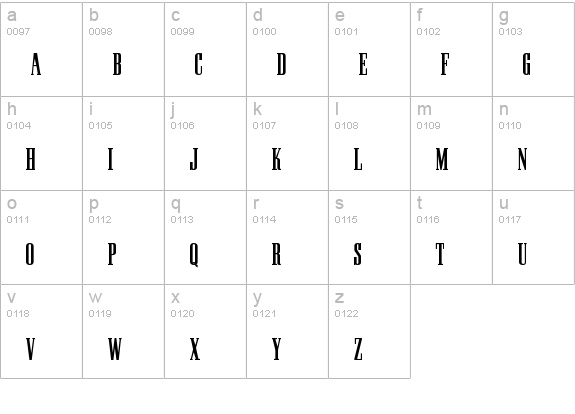
PallMallBoldTitling Font Details
PallMallBoldTitling is a stunning and versatile font that exudes confidence and boldness. With its strong and commanding presence, this typeface captivates the attention of viewers and leaves a lasting impression. Its bold and pronounced letterforms are perfect for headlines, titles, and branding materials. What sets PallMallBoldTitling apart is not only its striking aesthetics but also its accessibility. This font is available for free, making it an excellent choice for designers, creatives, and anyone in need of a powerful and impactful typeface. You can easily download PallMallBoldTitling at FontsMarket.com, a trusted source for high-quality and freely available fonts. Designed with meticulous attention to detail, PallMallBoldTitling ensures legibility and readability even at smaller sizes. Its well-defined curves and sharp edges add a touch of sophistication to any design project. From posters and advertisements to packaging and websites, this font effortlessly elevates the visual appeal of any composition. Whether you're creating a modern logo, a sleek magazine layout, or an eye-catching social media post, PallMallBoldTitling is the perfect choice to make your message stand out. With its timeless charm and versatility, this font is guaranteed to make a lasting impression on your audience. Don't miss the opportunity to enhance your design projects with the elegance and power of PallMallBoldTitling. Download this font for free at FontsMarket.com and unlock a world of creative possibilities.